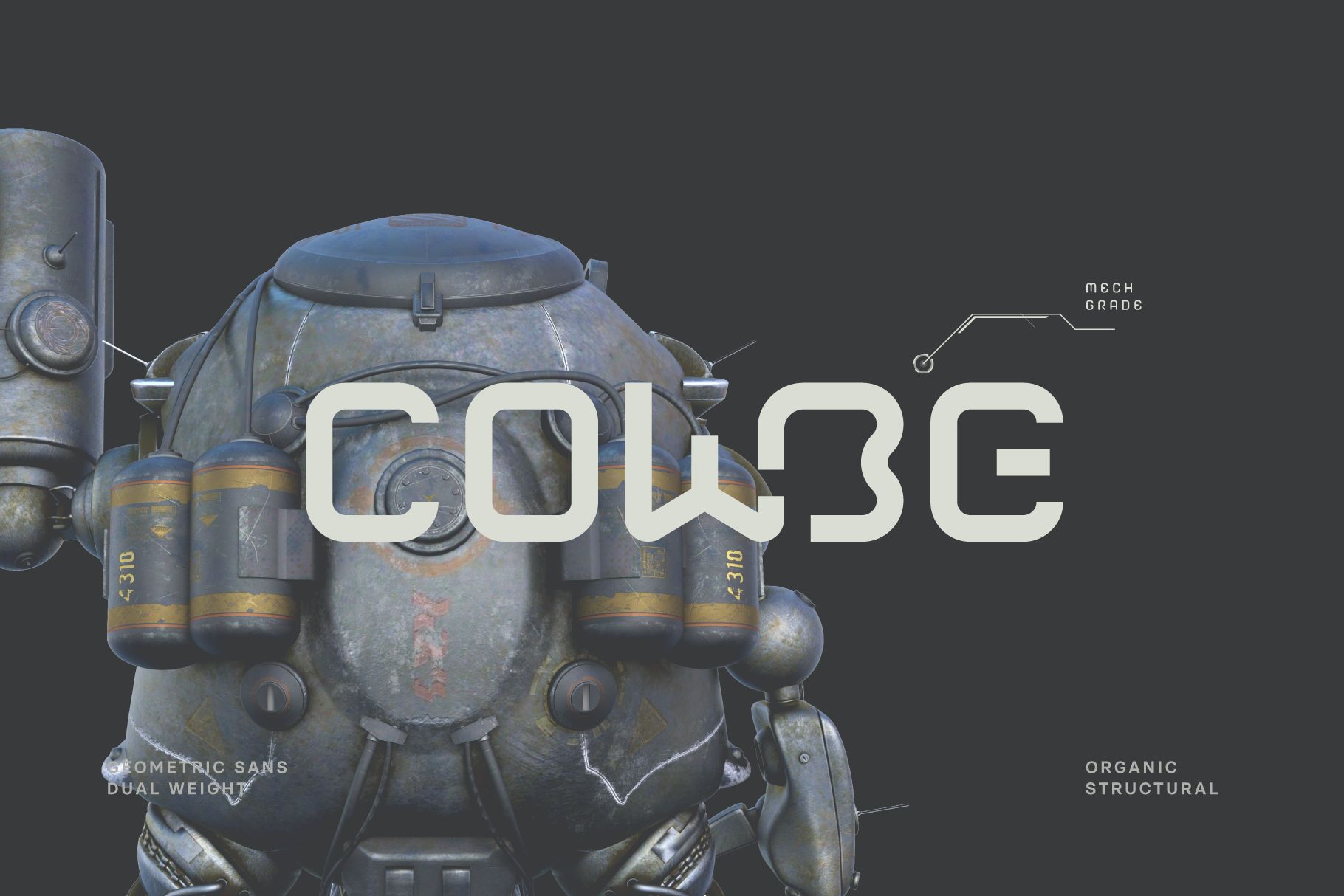
Cowbe Tech Font
Cowbe is an organic structural display font apt for conceptual prototype, cyberpunk theme poster, album cover, hud typography and user interface applications.
- Dual weights
- All caps with alternative
- Selected ligatures
- Numbers and punctuations
- Toggle caps lock for alternative glyphs